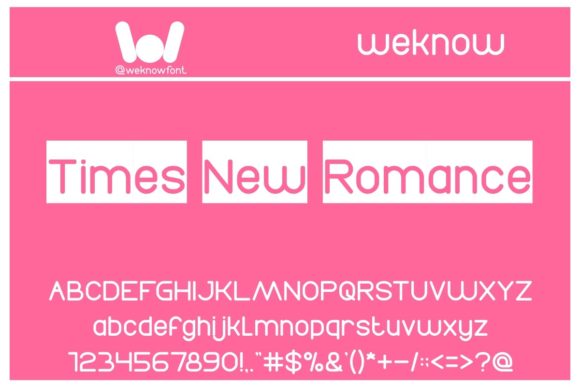
In the realm of digital artistry, where tales are born and aesthetics reign supreme, there exists a font that captivates the imagination like no other — Times New Romance Font. This sans serif masterpiece, delicately crafted by the visionary minds at weknow, beckons you to embark on a typographic adventure where boundaries blur, and creativity knows no limits.
Picture yourself crafting book covers that exude an aura of timeless elegance, or designing social media posts that dance with modernity. Envision creating invitations that whisper of enchantment, or fashioning logos that radiate an air of sophisticated charm. With Times New Romance Font as your creative ally, the possibilities are endless.
Immerse yourself in the font's minimalist aesthetic, where clean lines and graceful curves intertwine to create a visual symphony. Its versatile nature effortlessly blends with a myriad of design styles, like a chameleon seamlessly adapting to its surroundings.
Transport yourself to the world of Westeros, where Times New Romance Font reigns supreme as the perfect companion for your Game of Thrones-inspired creations. Imagine crafting posters that capture the epic grandeur of the Seven Kingdoms, or designing t-shirts that bear the sigils of noble houses. Let your imagination soar as you bring the world of George R.R. Martin to life, one character, one battle, one line of dialogue at a time.
But Times New Romance Font's allure extends far beyond the realm of fantasy. Its versatility shines in the world of fashion, where it adorns magazine covers with a touch of sophistication, and elevates e-commerce websites with a sleek and modern aesthetic. Its clean lines and minimalist charm effortlessly complement product photography, highlighting the beauty and elegance of each item.
For those seeking a font that sparks creativity and ignites the imagination, Times New Romance Font stands as the ultimate choice. Its versatility, elegance, and modern appeal make it the perfect companion for a diverse range of projects. Unlock the boundless potential of this typographic gem and witness the transformation of your designs into captivating works of art.